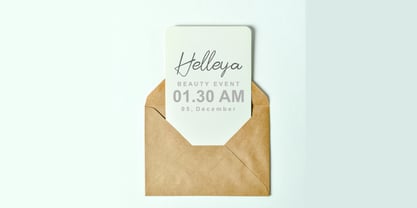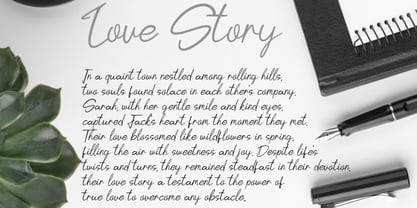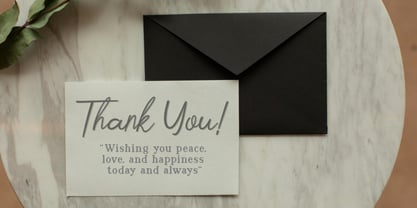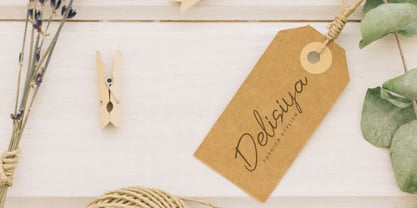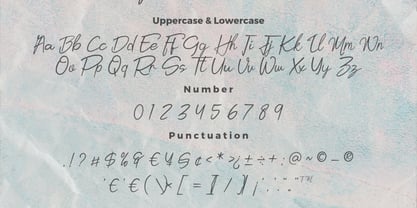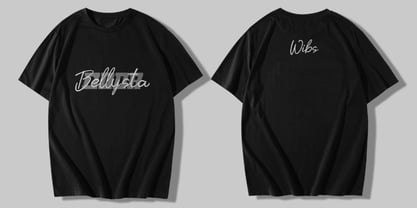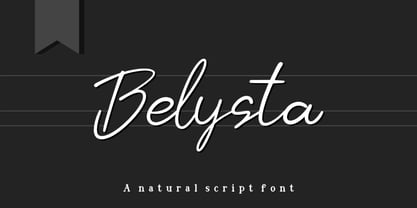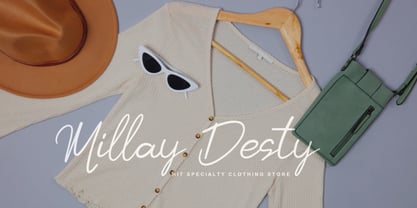
Belysta
by Bayuktx
The Belysta Font Family was designed by Bayu Aji Fais Mursid and published by Bayuktx. Belysta contains 1 styles.
Belysta a Natural Script Font, This font is made with a high premium quality level which you can use as flyers, quotes, posters, banners, packaging, merchandise, logotypes and much more.
* Uppercase
* Lowercase
* Number
* Punctuation
* Multilingual